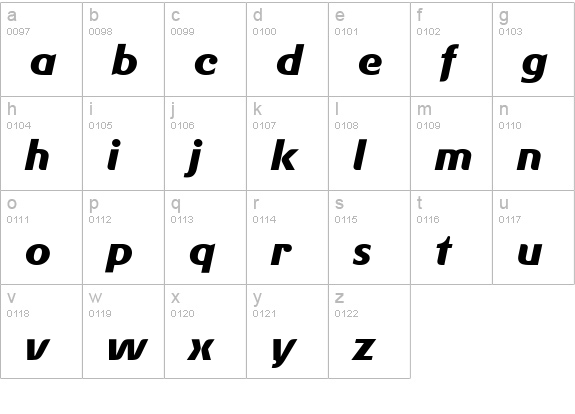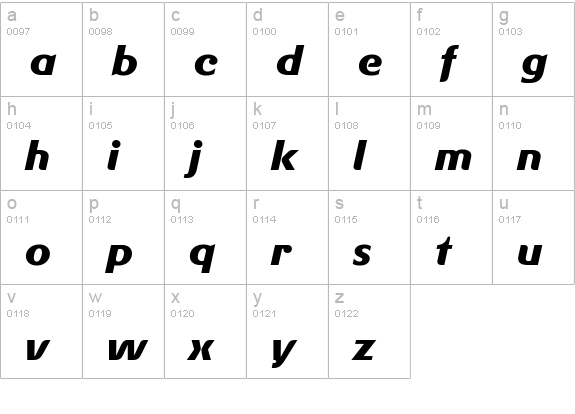
Gerstner Original Bold Italic is a strong, high-contrast, italic variant in the Gerstner typeface family \xE2\x80\x94 well suited to headlines, attention-grabbing titles, and strong calls-to-action.
Gerstner Original Bold Italic font exudes a bold and dynamic presence with its sleek and modern design. The strong, slanted letterforms command attention and make a statement in any design project. The distinctive italics add a touch of sophistication and elegance to the overall appearance. This font is perfect for headings, titles, and other impactful text elements that require a unique and eye-catching look. Whether used in print or digital media, Gerstner Original Bold Italic font delivers a powerful visual impact that demands attention. Best of all, Gerstner Original Bold Italic font is freely available to download at FontsMarket.com. Take advantage of this opportunity to enhance your design projects with this versatile and striking typeface.